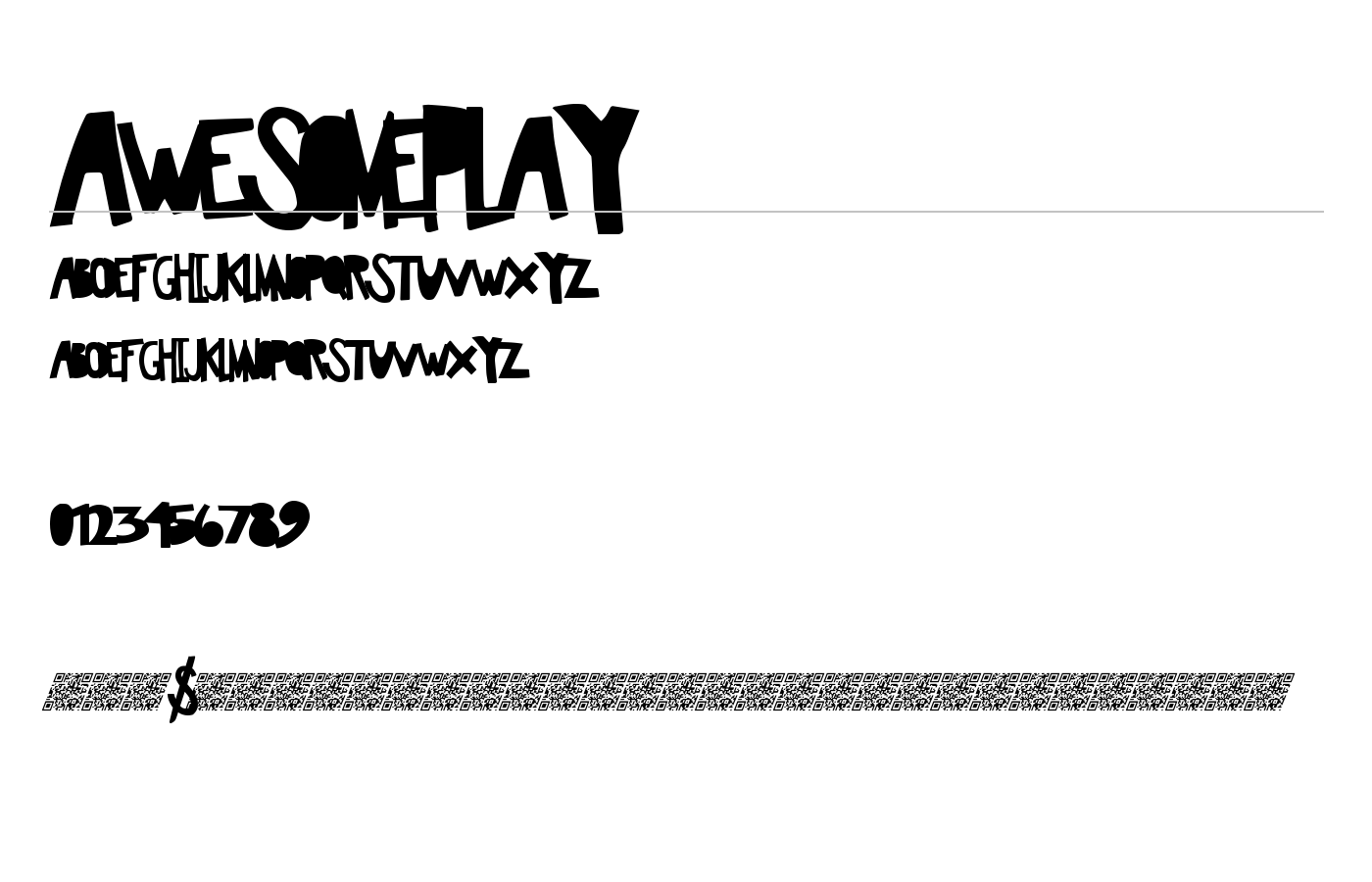
AwesomePlay is a bold and playful display font with a quirky, hand-drawn style that features uneven, chunky letterforms and a casual feel. Its irregular shapes and energetic strokes make it perfect for fun, informal designs like posters, kids’ branding, and creative headlines, adding a sense of spontaneity and excitement. This font captures attention with its strong personality, making it great for projects that want to convey creativity and a lighthearted mood.
AwesomePlay Font
About AwesomePlay Font